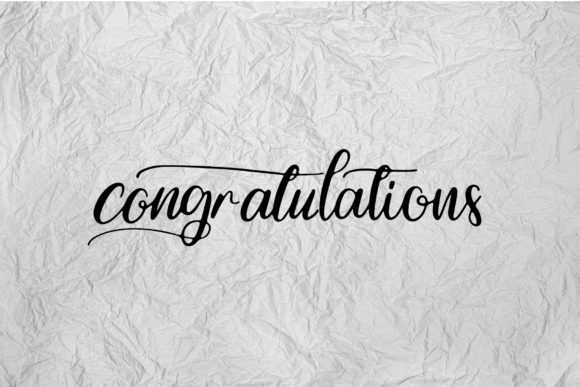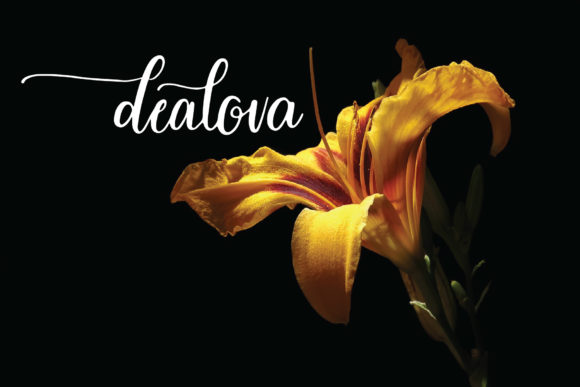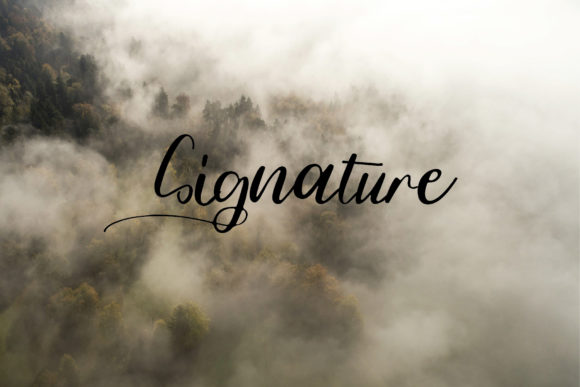
Kannabelle Font
About Kannabelle Font
Kannabelle is a unique and authentic script full of energy. Use it to add a romantic, playful charm to any design project.